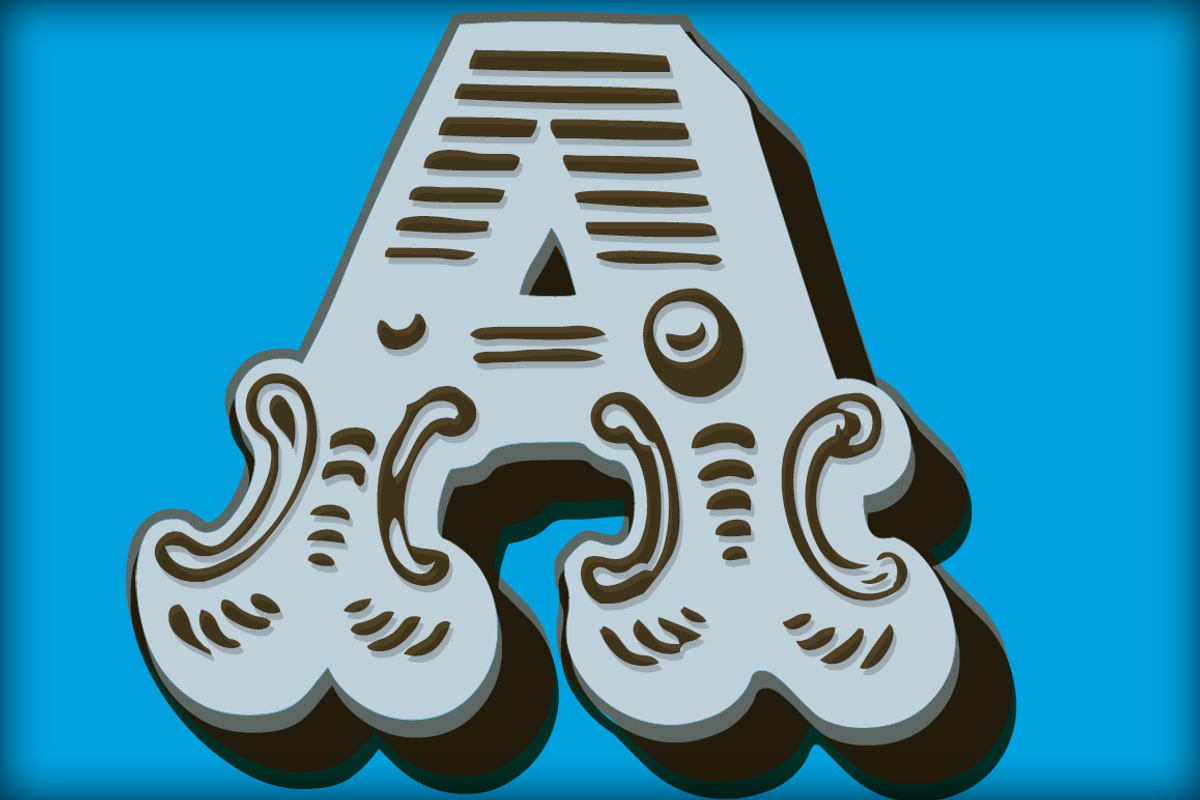
The Dusty Circus LTD Font Free Download is a unique and playful typeface inspired by vintage circus signage with a bold and slightly distressed look. Perfect for retro-themed designs, carnival posters, event flyers, and creative branding, this font brings a sense of nostalgia and fun to your projects.
With its decorative letterforms and dynamic style, Dusty Circus LTD stands out in headlines, logos, and display projects. It includes uppercase letters, numbers, punctuation, and multilingual support, making it adaptable for a range of creative uses.